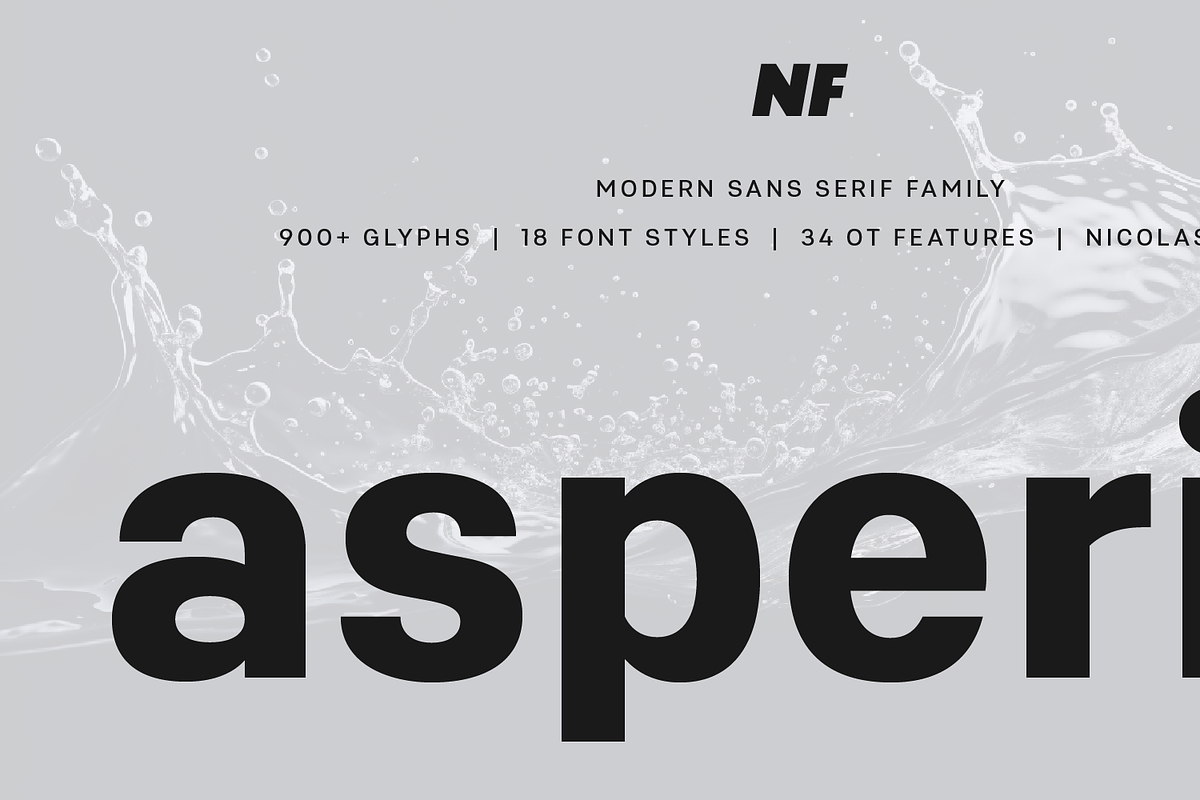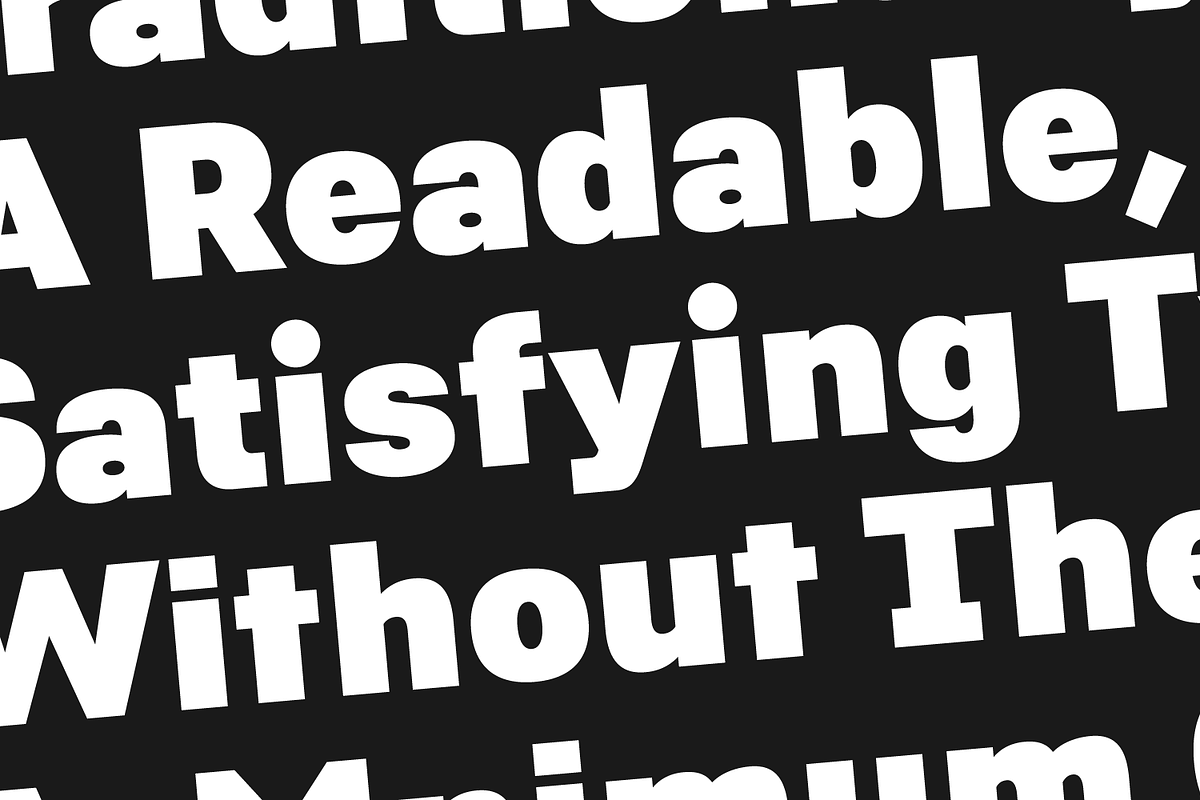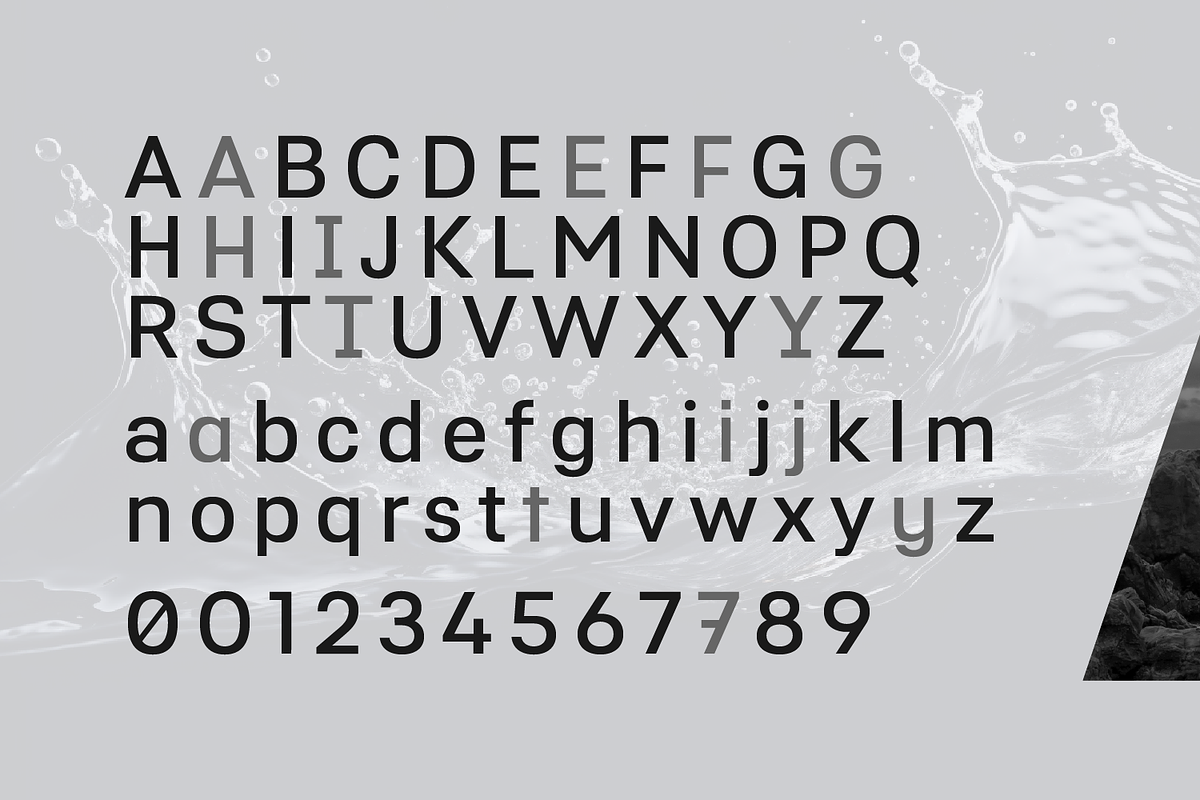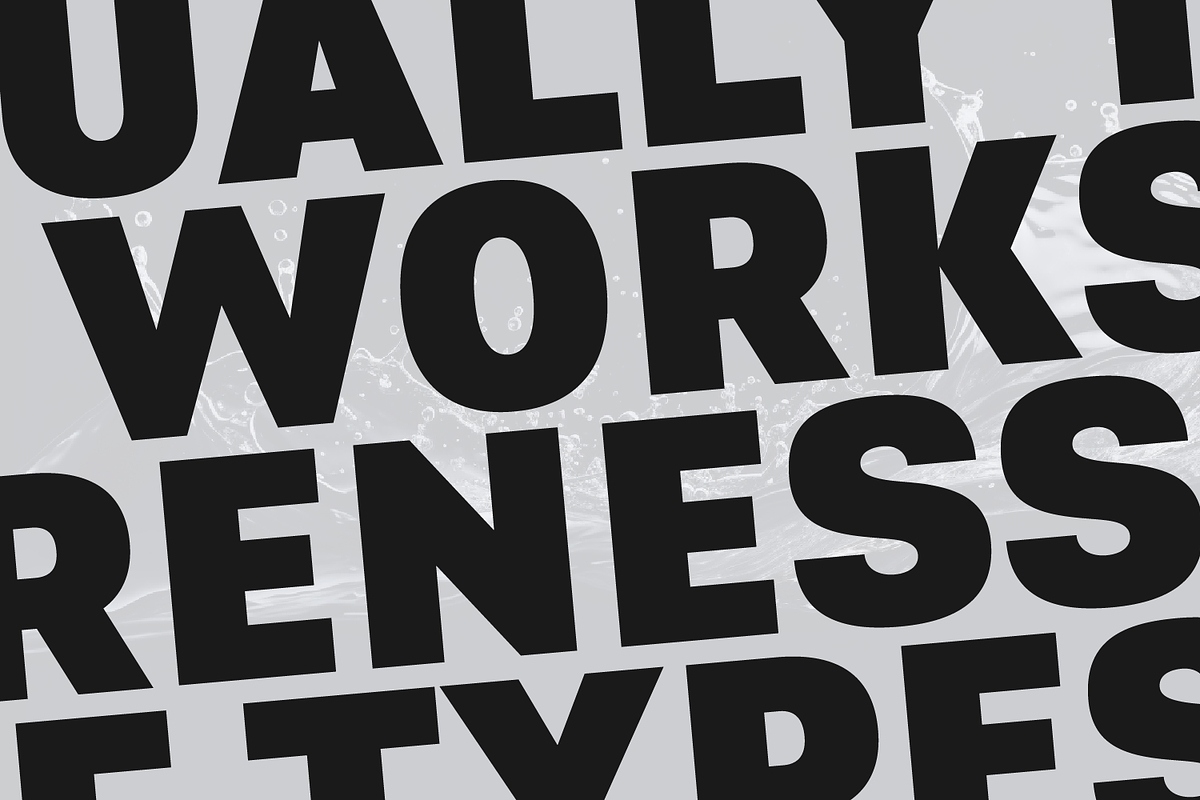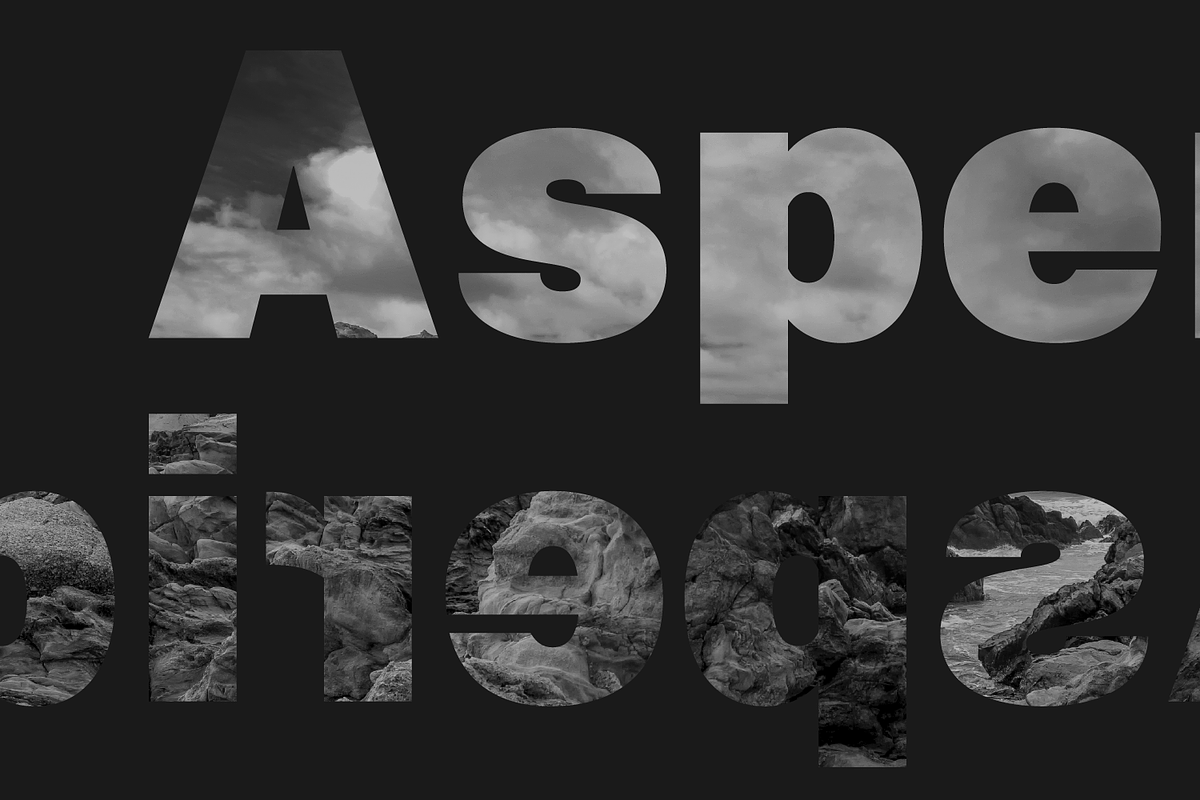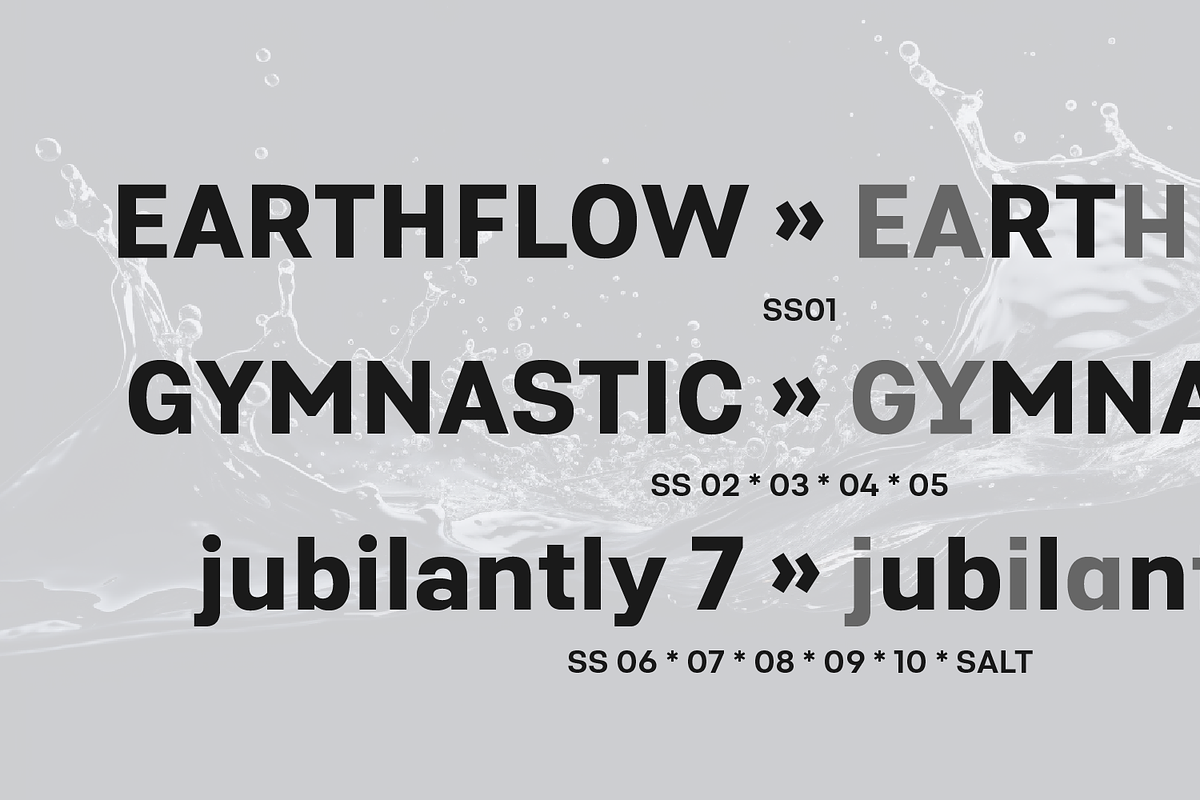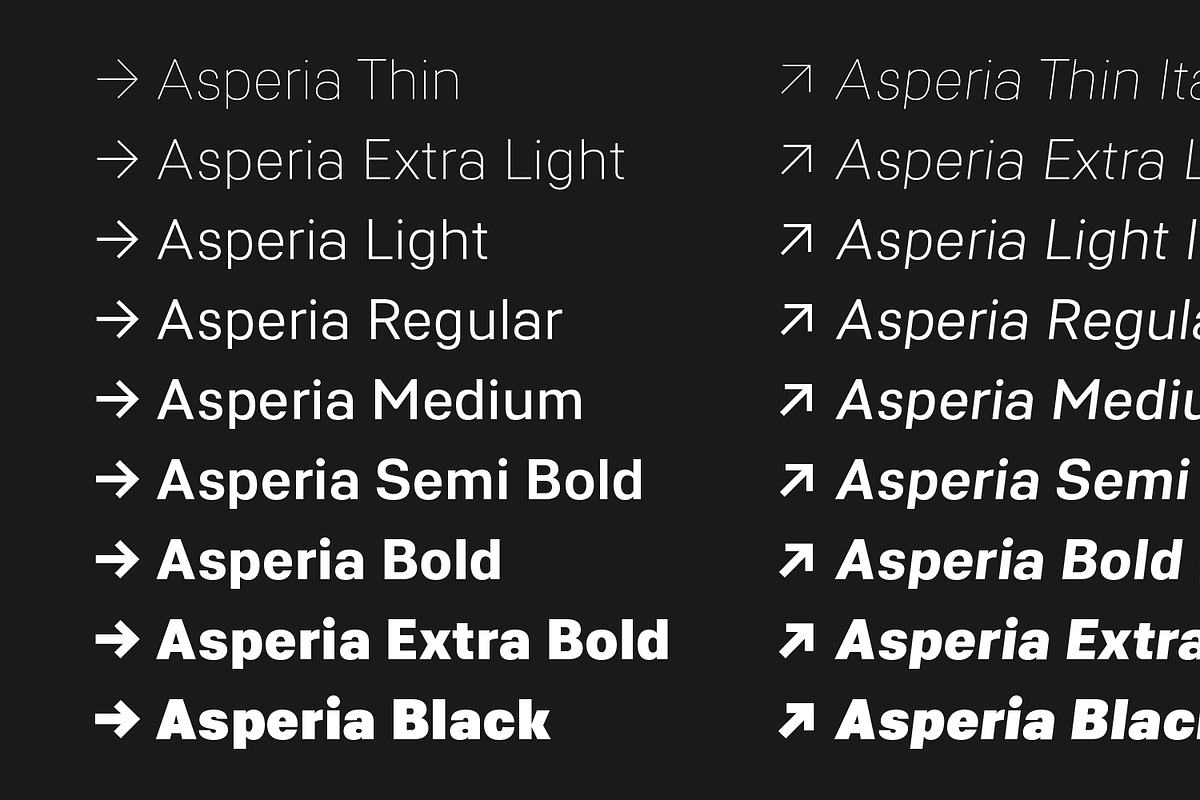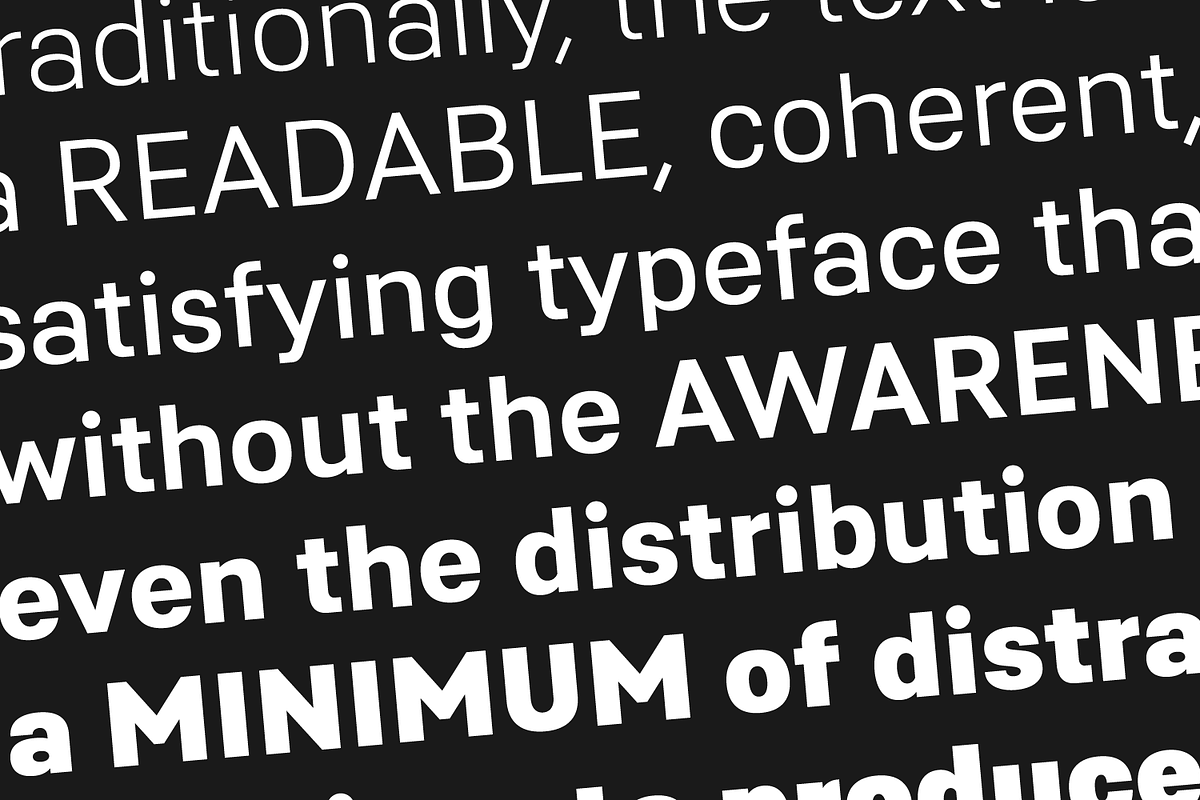
Asperia Typeface
Asperia is a contemporary sans serif. It comes in 18 weights—9 uprights and their matching italics—spanning from Thin to Black. Each weight is designed to work equally well in small text sizes and large, attention-grabbing headlines.
Each style contains over 700 glyphs. Asperia supports a rich set of OpenType features, including:
discretionary and standard ligatures, stylistic alternates, stylistic sets (ss01–ss11), localized forms, case-sensitive forms, fractions and alternative fractions, ordinals, superscripts and subscripts, tabular and proportional figures, contextual alternates, capital spacing, and more.
Perfectly suited for branding, editorial layouts, corporate identities, wayfinding, and digital interfaces, Asperia brings a cohesive, modern voice—and a wealth of typographic options—to any design project.